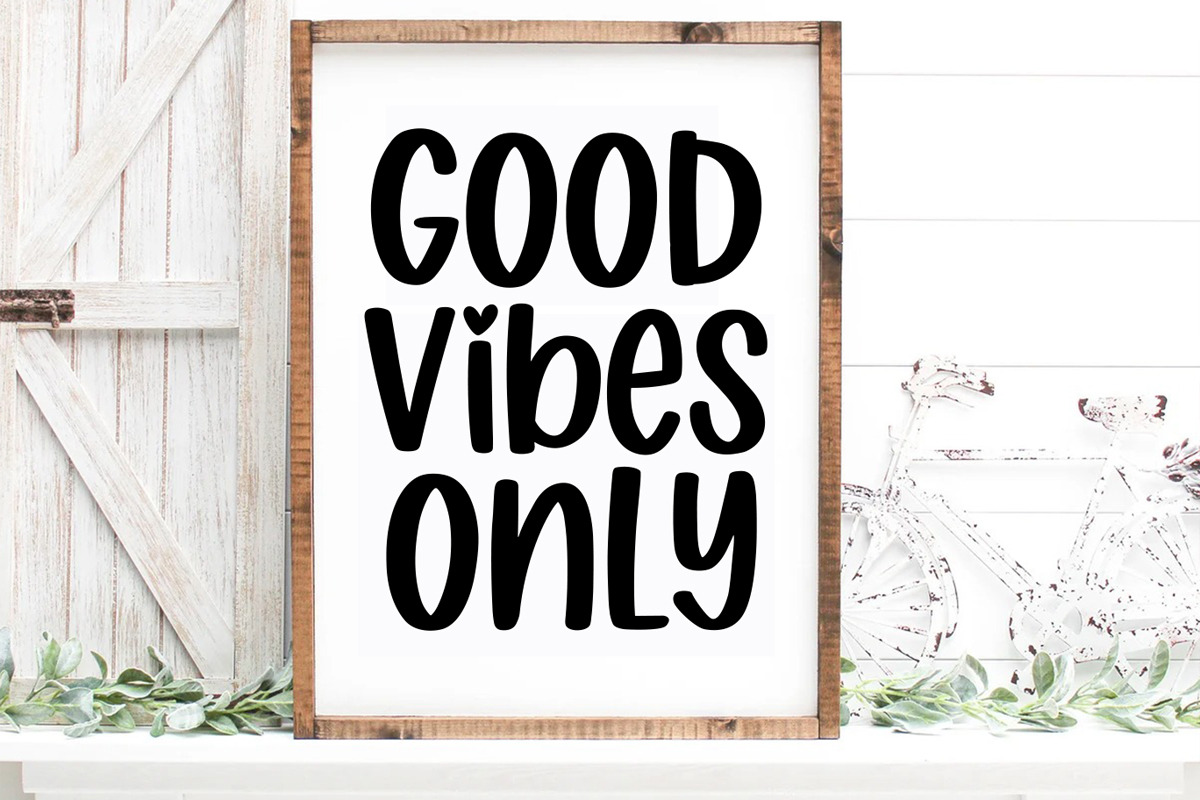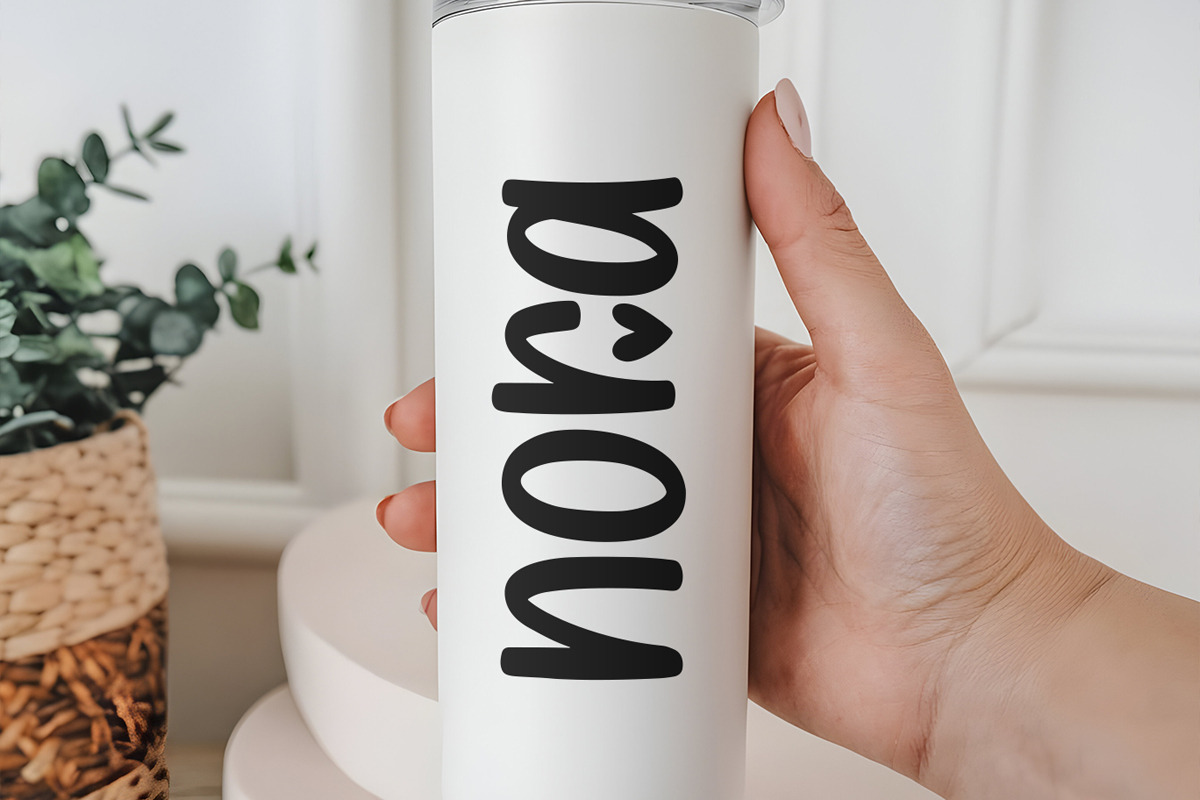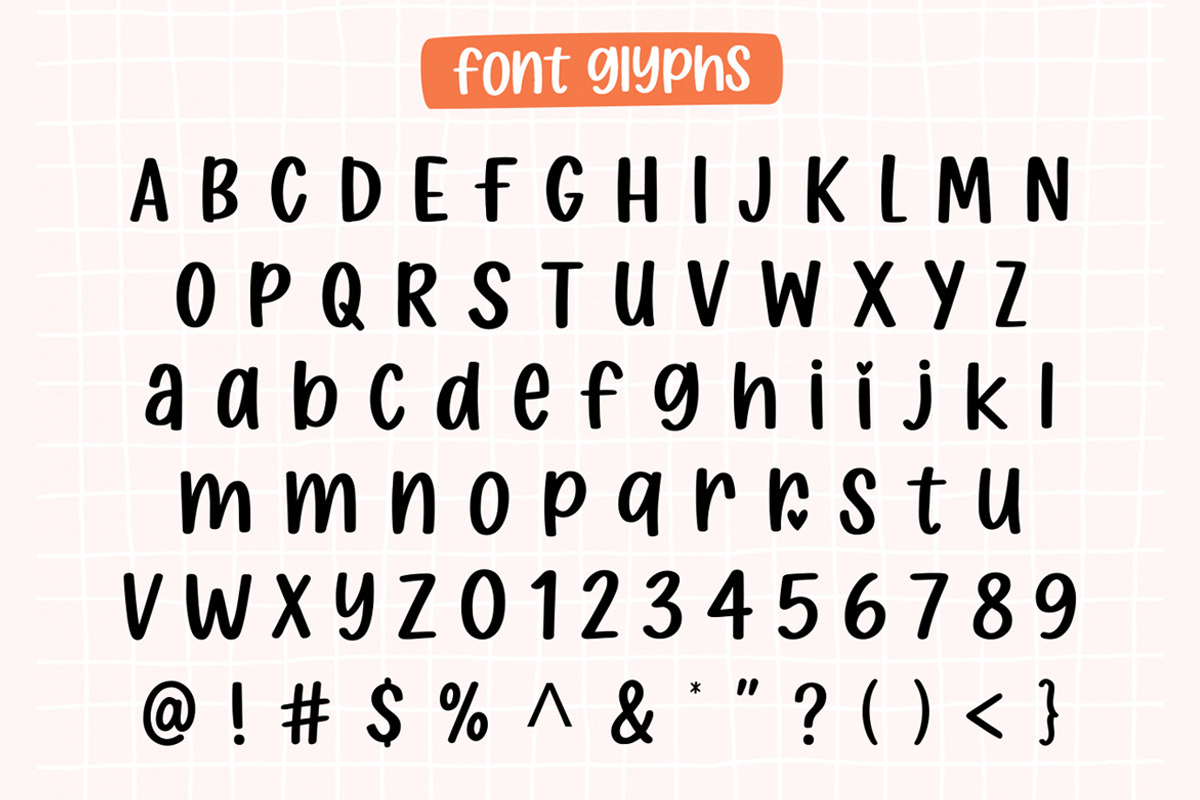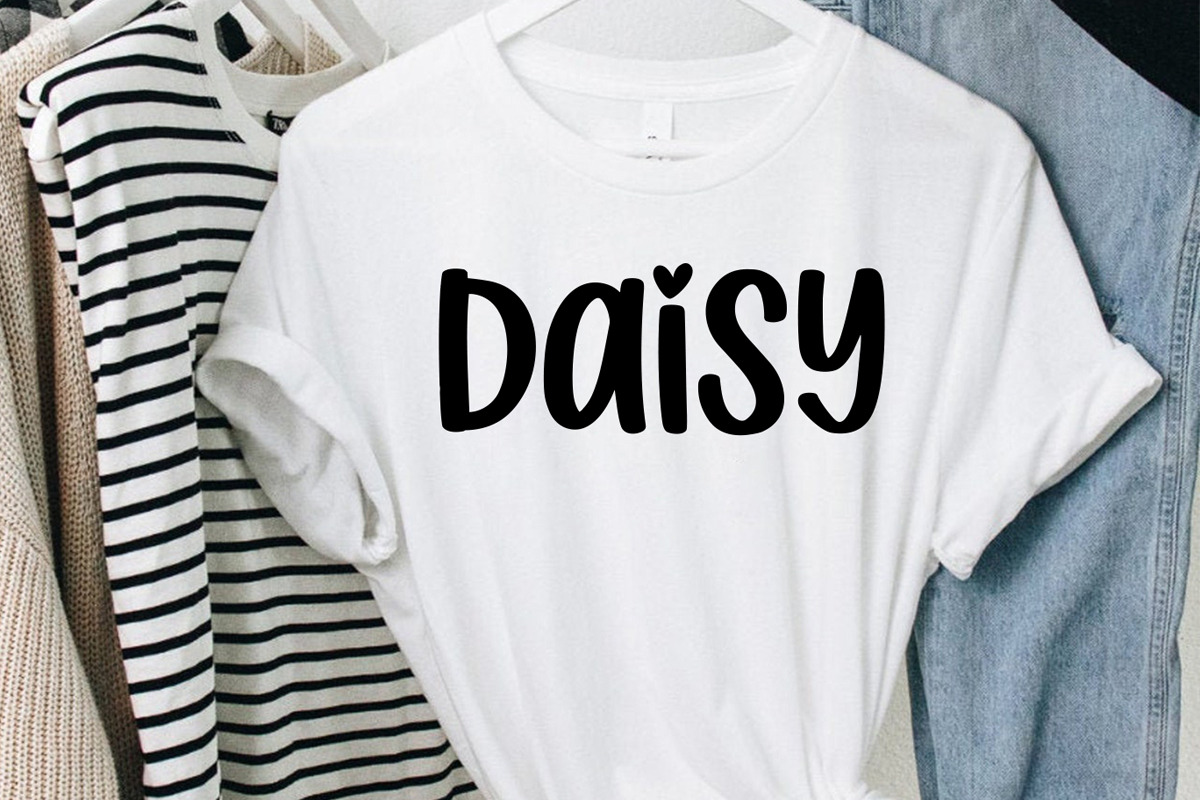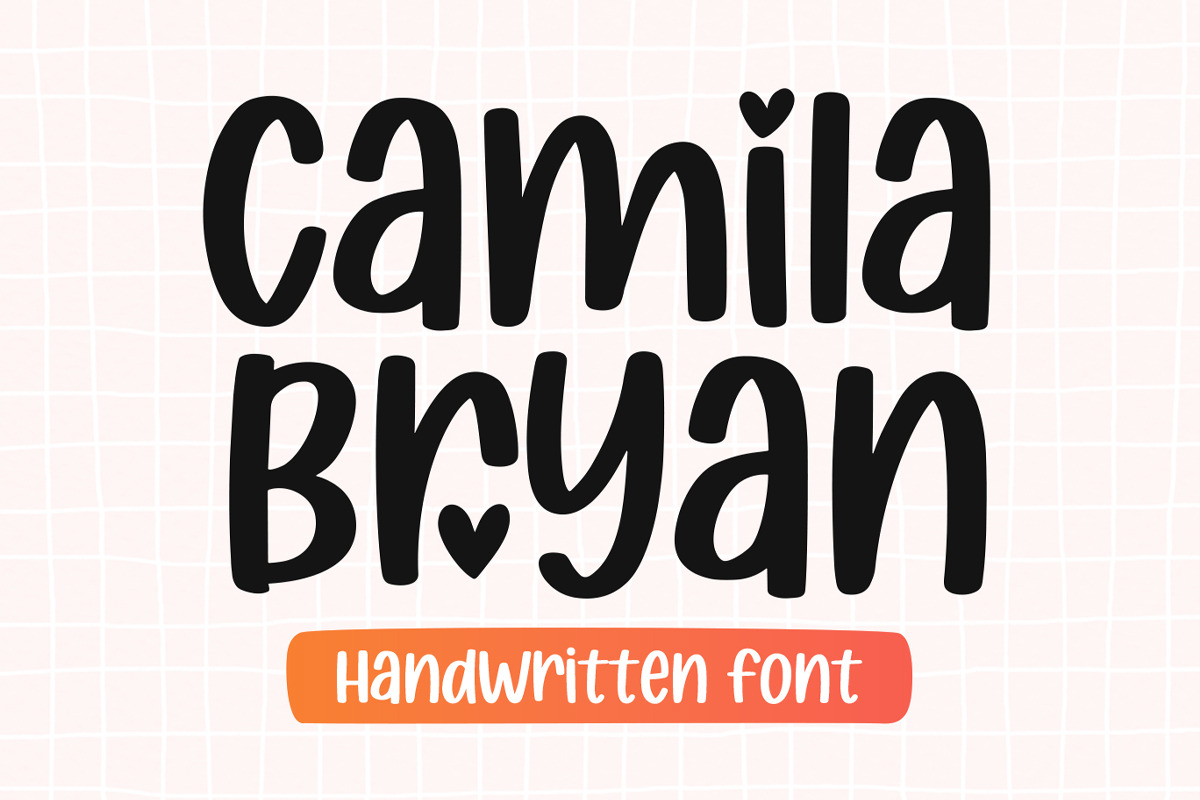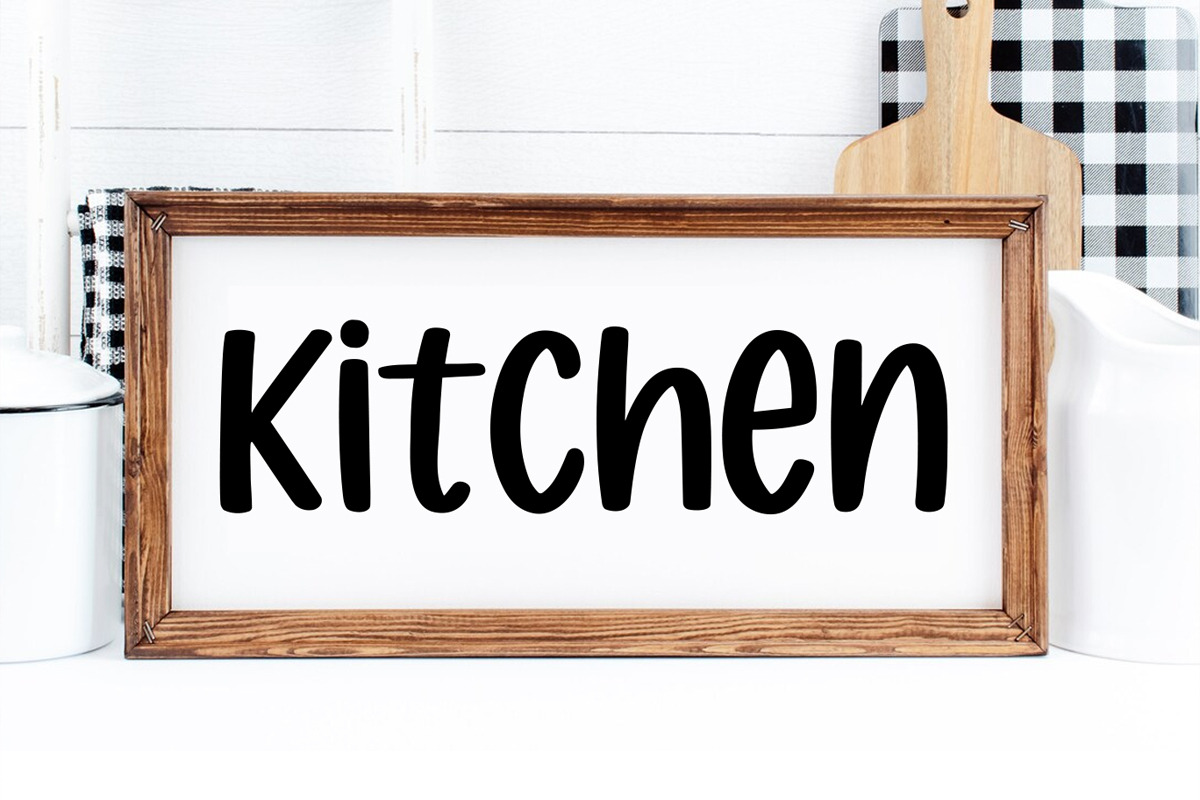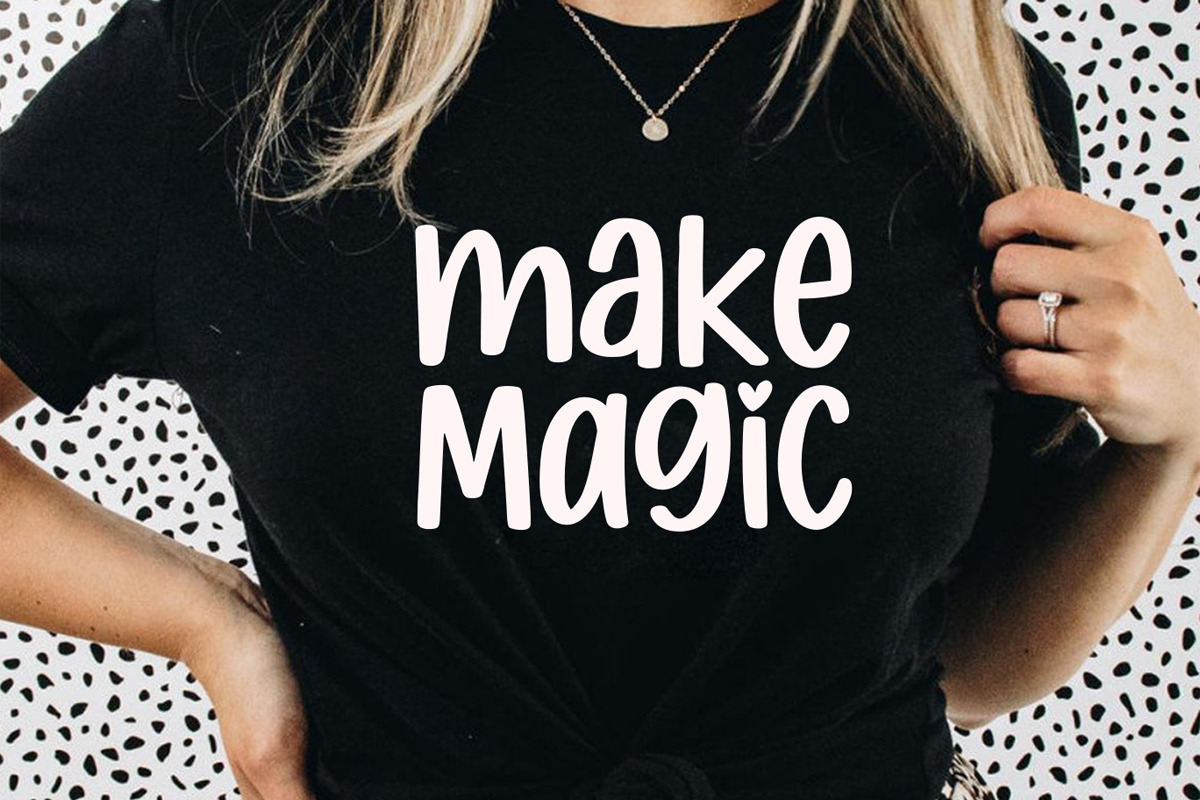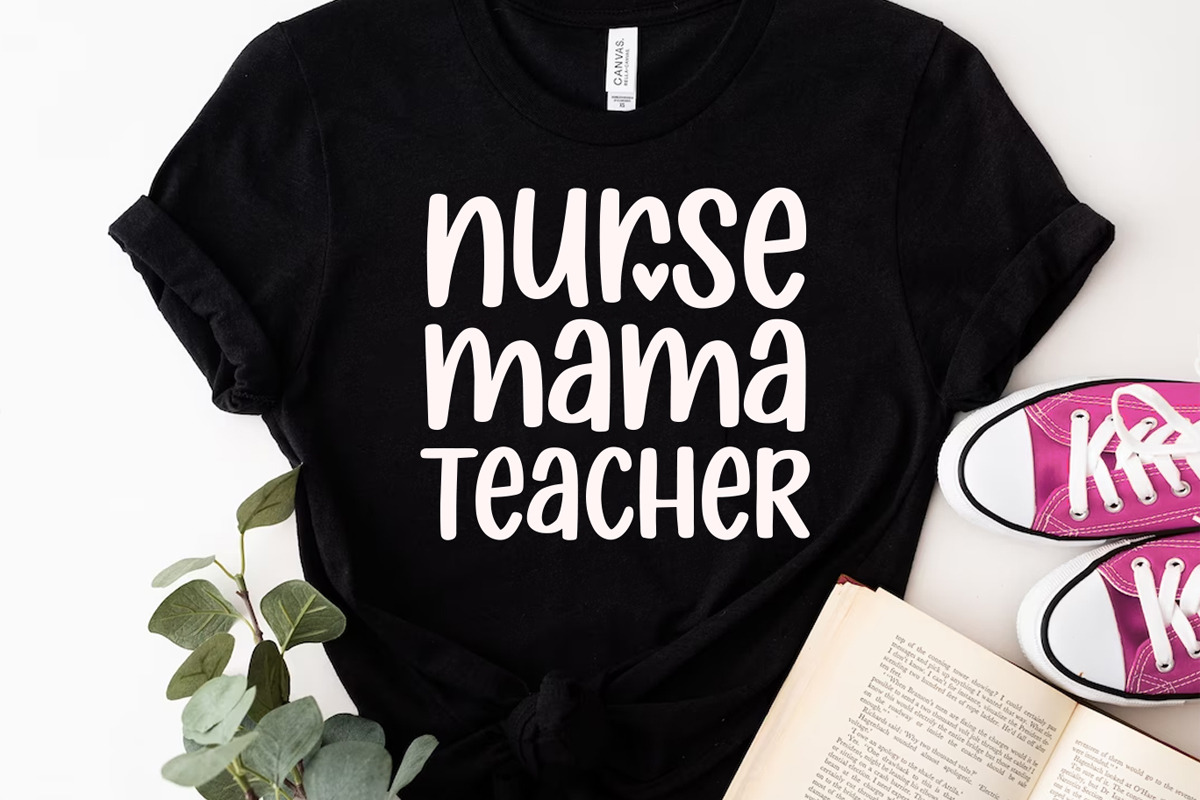
Camila Bryan - Handwritten Font
Camila Bryan is a modern, stylish, and flowing handwritten heart font. It has beautiful and well-balanced characters, and as a result, it matches a wide pool of designs. It is the best choice for creating eye-catching logos, branding, and quotes. Add it to your most creative ideas, and notice how it makes them come alive!